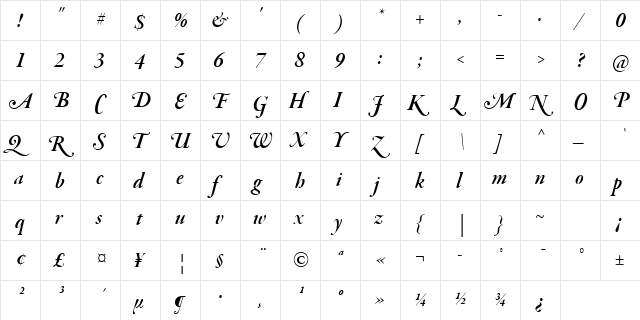
Garamond Swash Italic
| Designer | Preradio Nikola Kovanovic. |
Design Context for Garamond Swash Typeface
Garamond Swash brings a calligraphic fluidity to the page — its connecting strokes and expressive curves give it an unmistakably human quality.
Font Pairing: Combine Garamond Swash with a simple geometric sans for maximum contrast — the tension between flowing curves and clean structure is a classic typographic pairing.
Pro Tip: Pair Garamond Swash with a clean sans-serif for supporting text. The contrast between fluid script and geometric structure creates an elegant typographic hierarchy.